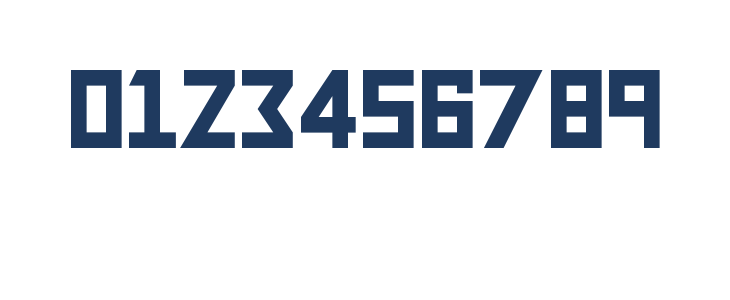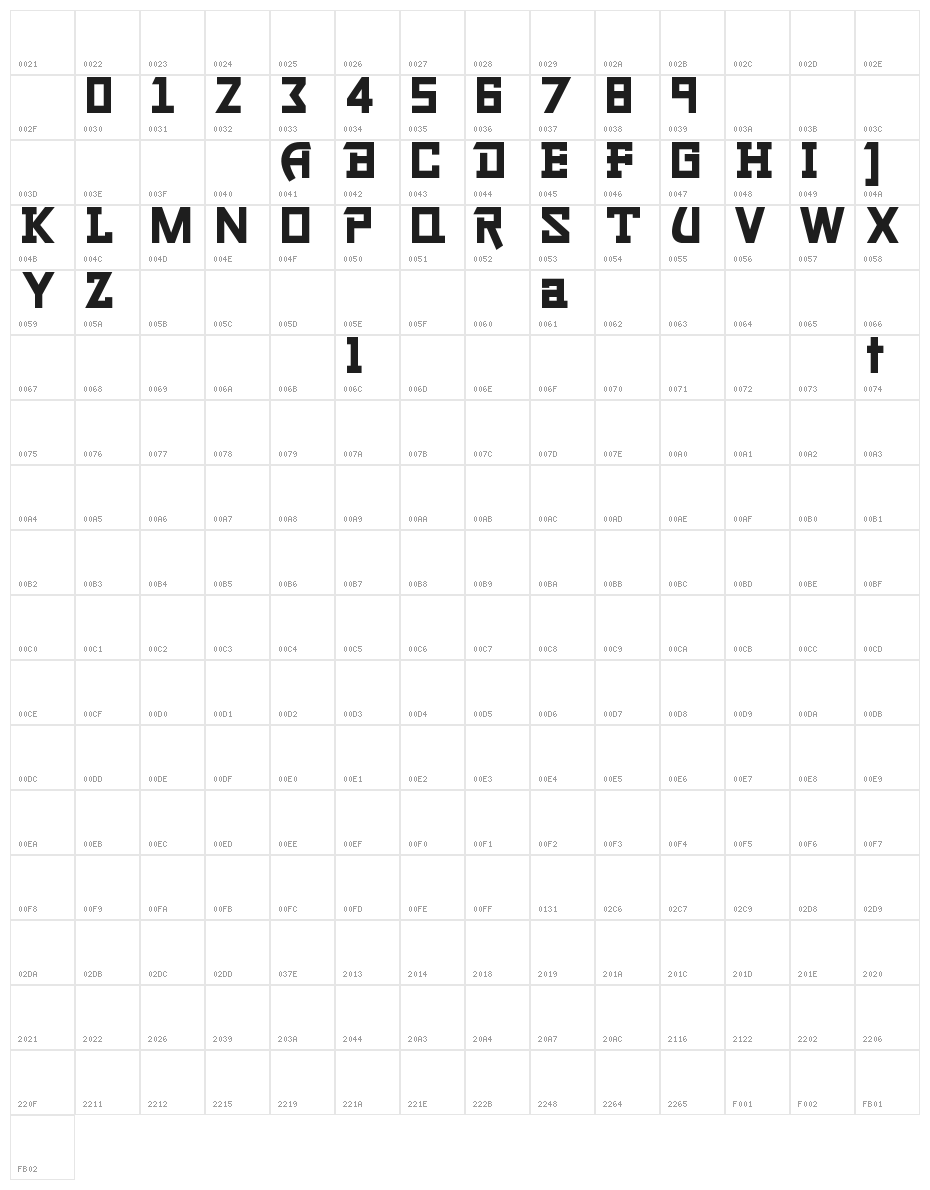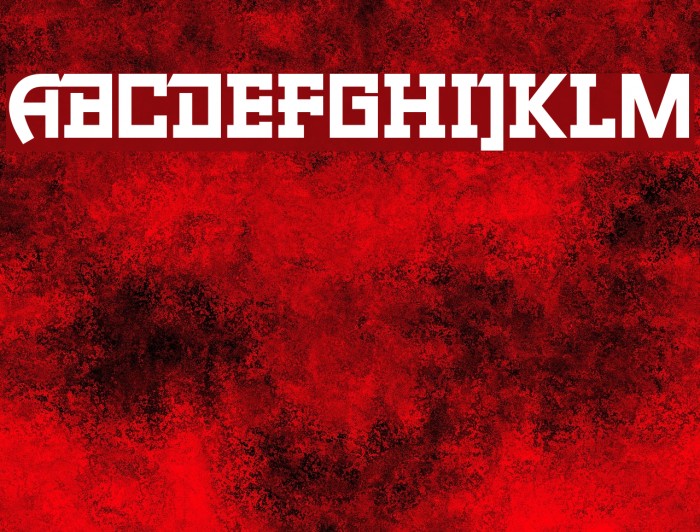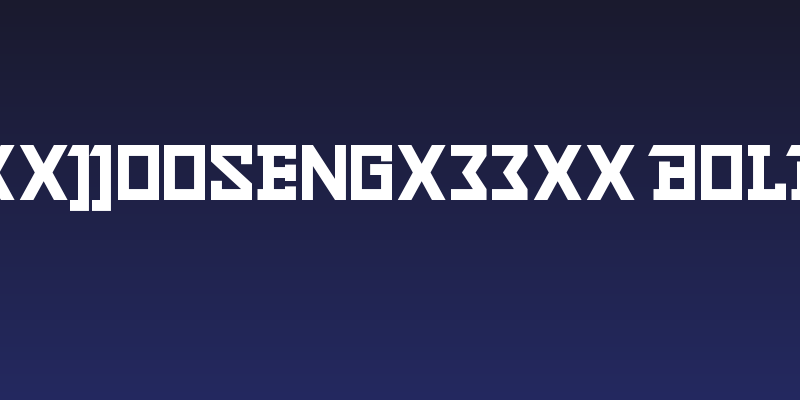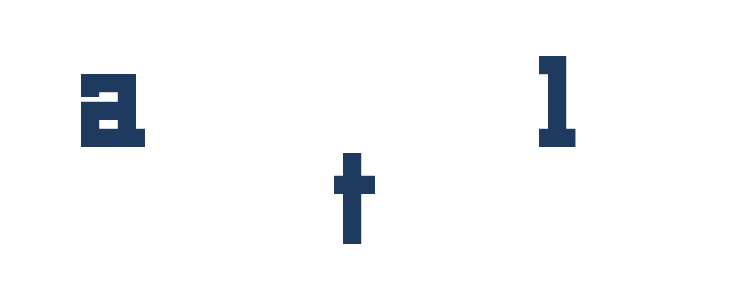
xxjjoosengx33xx Bold Font
xxjjoosengx33xx Bold Description
This font exhibits a bold and striking appearance, characterized by its geometric and angular letterforms. The uppercase letters are particularly distinctive, with sharp edges and a blocky structure that conveys a sense of strength and modernity. The lowercase letters maintain this boldness, ensuring consistency across the typeface. Numbers and special characters are equally robust, making them stand out with clarity. The overall design is reminiscent of industrial or futuristic themes, suitable for projects that require a powerful visual impact.
| Proposed Projects | Ideal for branding, posters, headlines, and any design work that requires a bold and impactful typeface. |